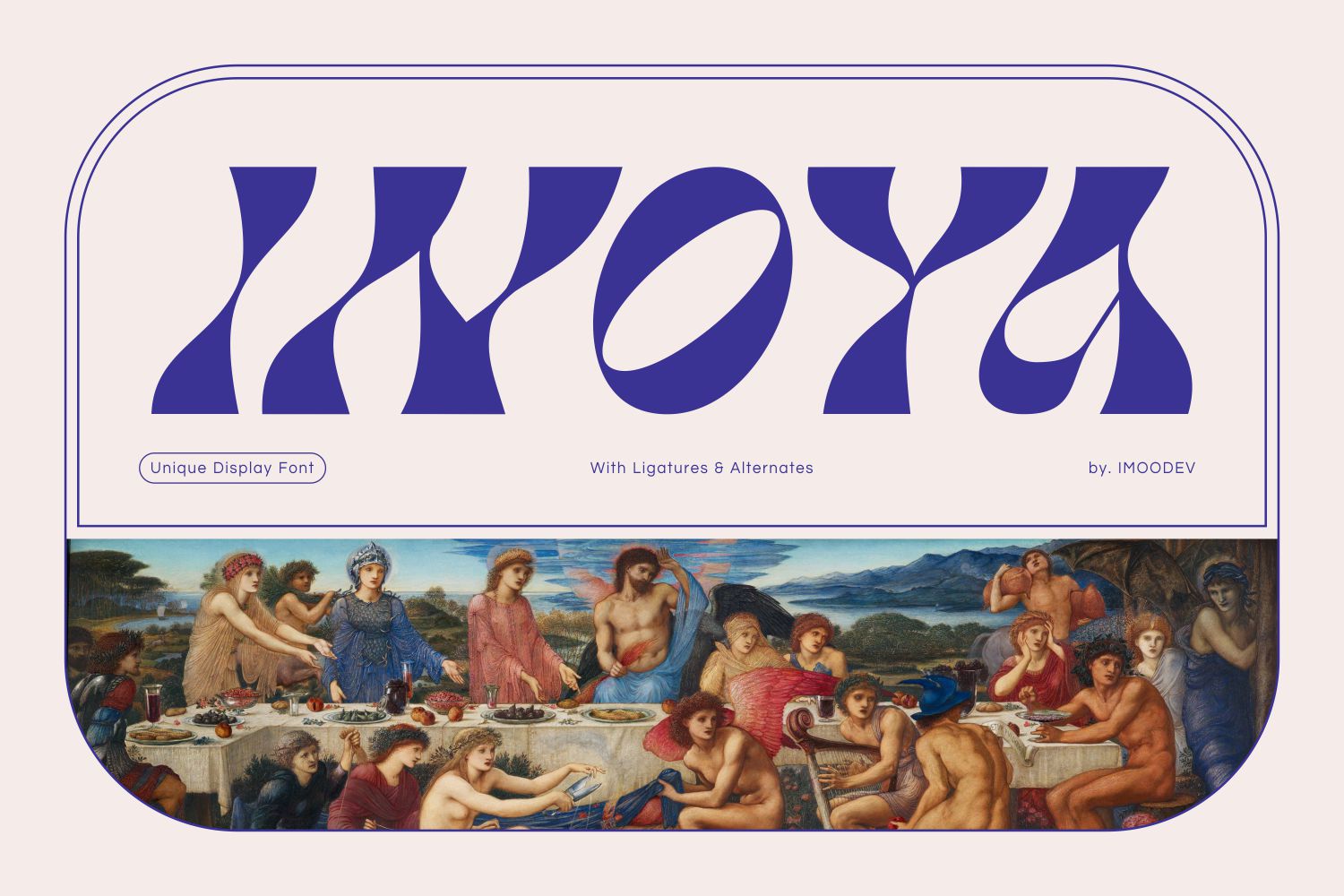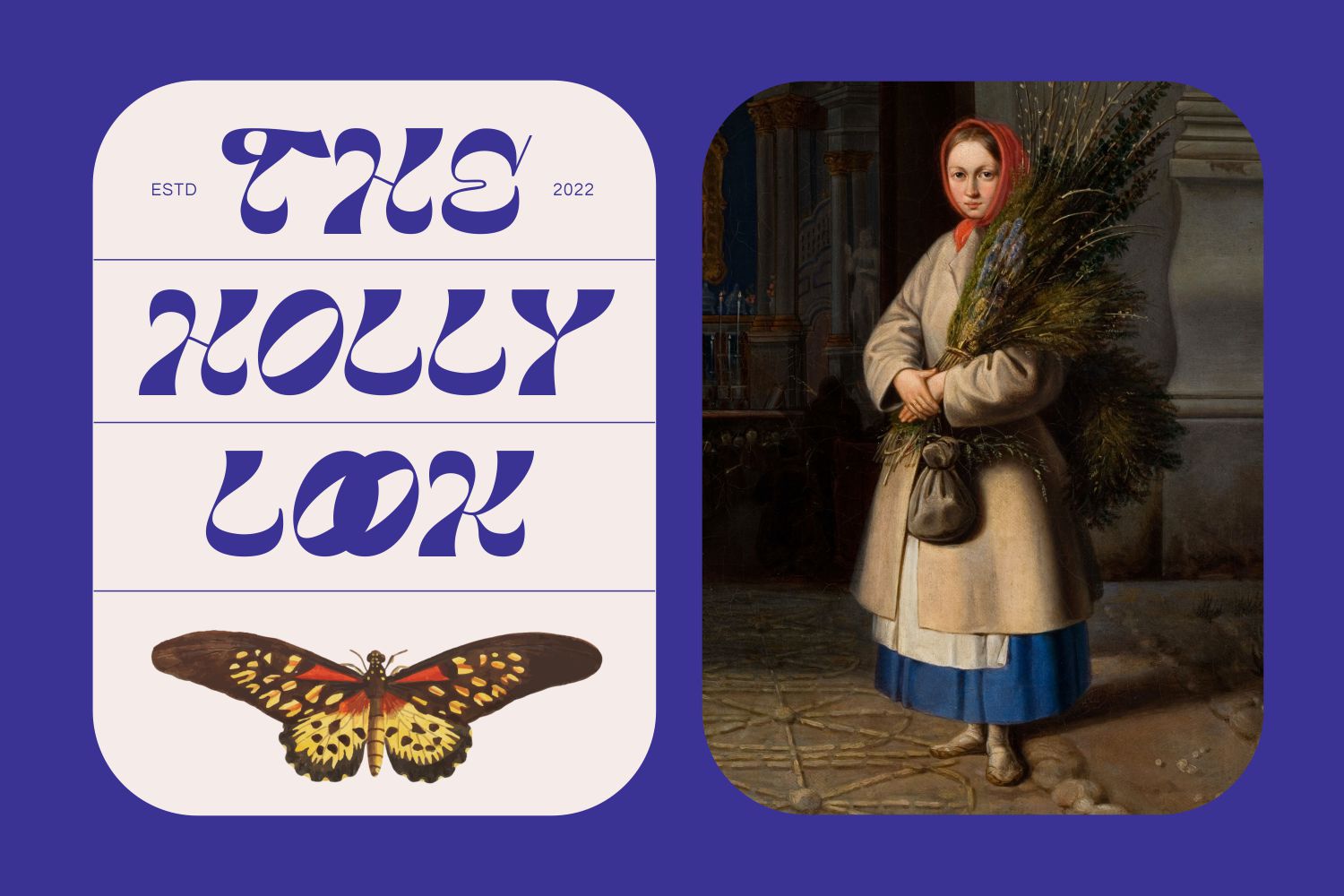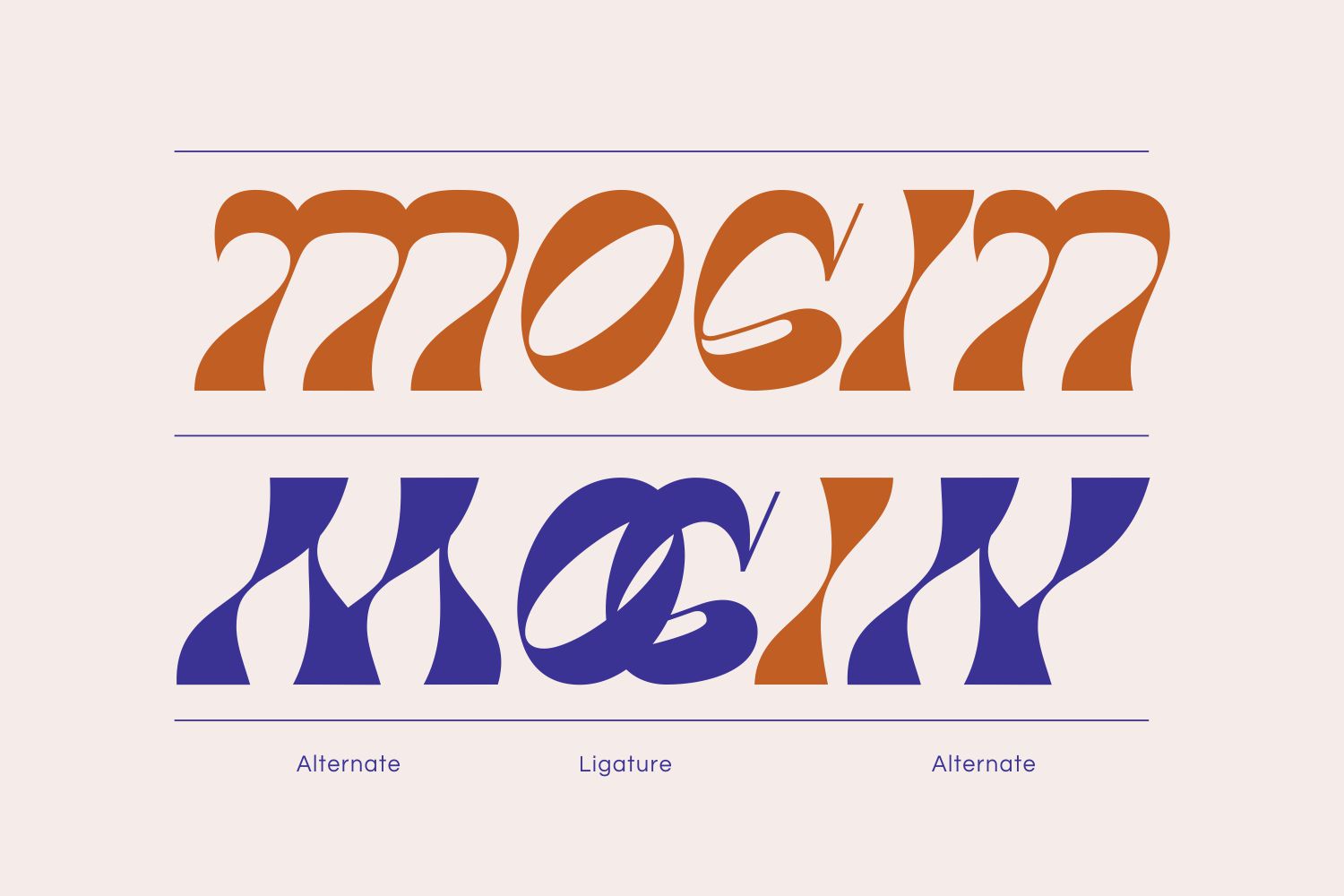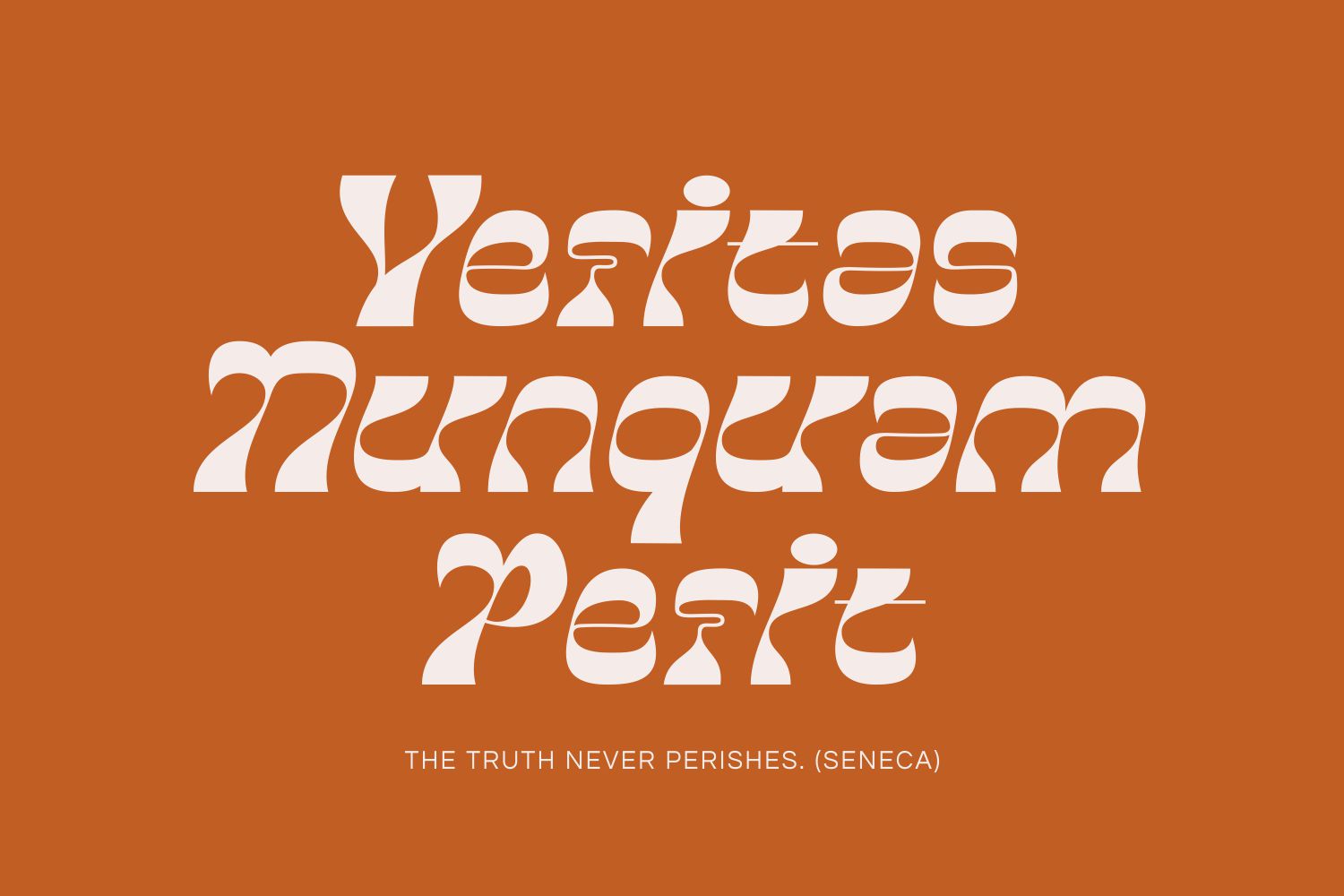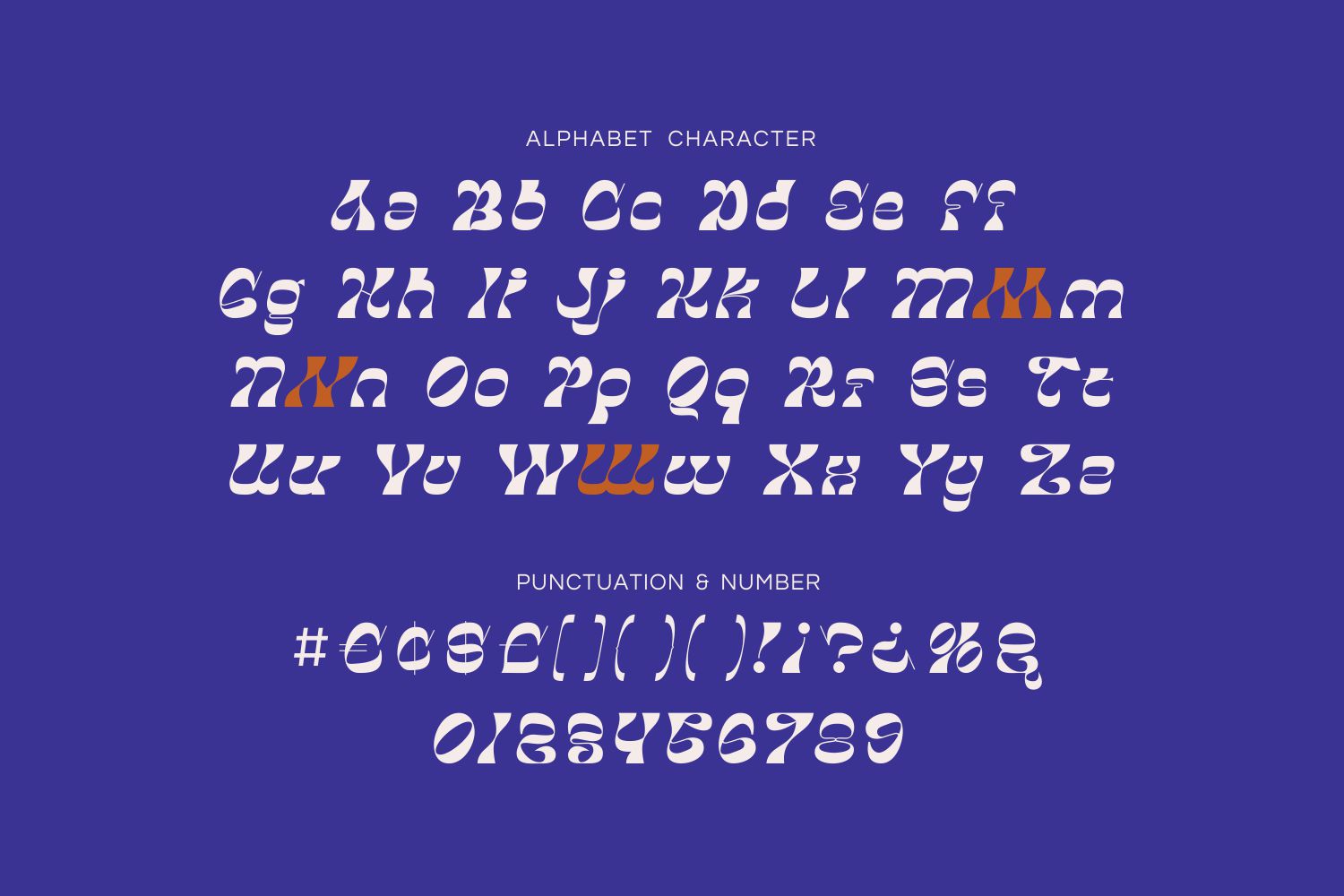
Inoya is a unique display font that combines artistic curves with sharp geometric details, creating a truly eye-catching and contemporary aesthetic. Its distinctive letterforms draw inspiration from classical art and modern design, blending fluid strokes with bold shapes. Perfect for editorial layouts, branding projects, and creative posters, Inoya brings a sense of sophistication and originality that makes any design stand out.
With a selection of alternates and ligatures, Inoya offers flexibility for designers to experiment and achieve various impressions. Whether used in luxury branding, fashion campaigns, or artistic publications, this font adds an expressive and avant-garde character. Its balance of elegance and creativity ensures it captures attention while maintaining a refined and professional look.
Inoya